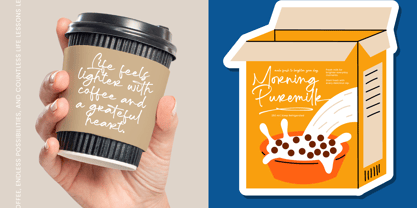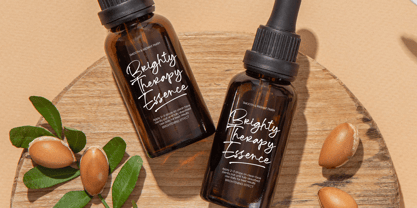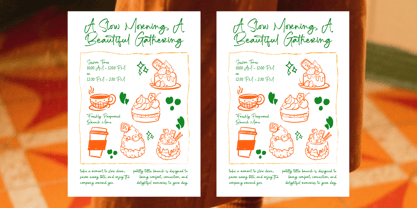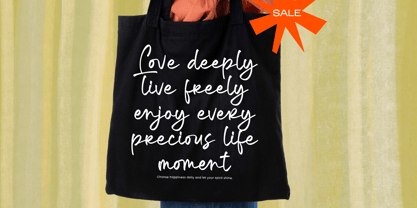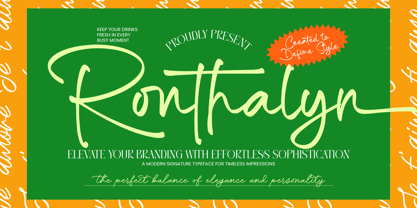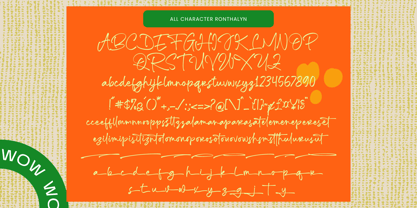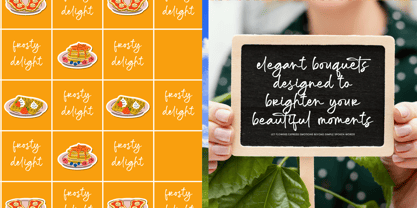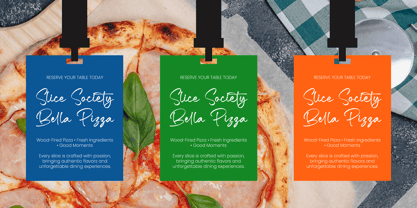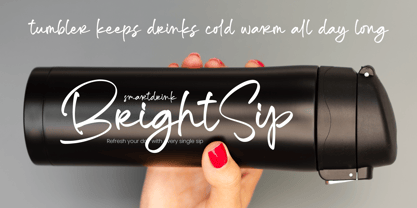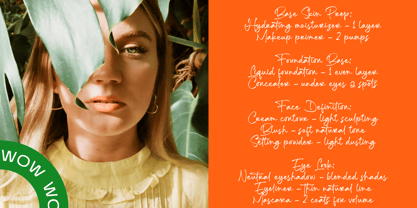
Ronthalyn
The Ronthalyn Font Family was designed by Heru Utama Putra and published by Letterena Studios. Ronthalyn contains 2 styles and family package options. More about this family
Elevate your design identity with a touch of authentic sophistication and modern elegance. Ronthalyn - Handwritten Signature Font Script is a masterfully crafted typeface designed to provide a fluid motion and a natural, human touch to any project. Its organic strokes and graceful curves evoke a sense of bespoke craftsmanship, making it an essential asset for designers seeking to convey luxury and personality without compromise.